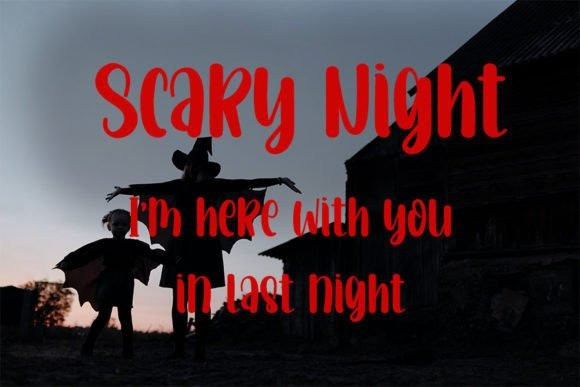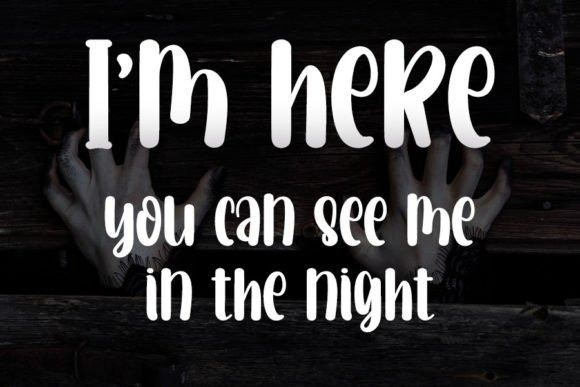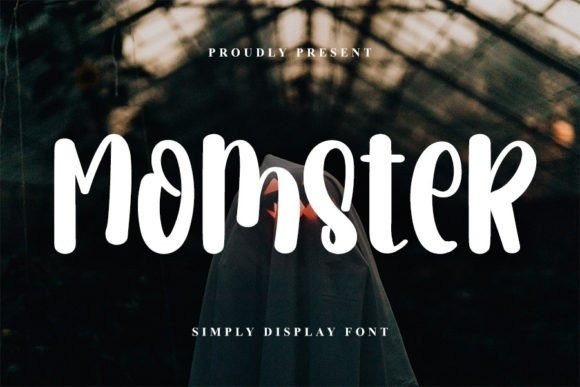
Momster Script Font
Momster Script Font is a trendy handwritten font with a contemporary atmosphere and impeccable form, inspired by a timeless classic calligraphy. It will add elegance and class to any of your design projects.